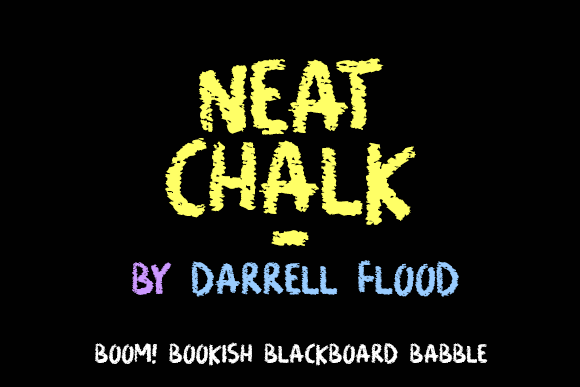
Neat Chalk Font
About the Neat Chalk Font
Meet Neat Chalk Font, a stunning font that brings a touch of elegance and professionalism to any design. A loose, textured, hand-drawn font, in a “chalk on blackboard” style. Use for a wide range of projects, and instantly add an academic or child-like appeal to your designs.
Font created by Darrell Flood.
Neat Chalk’s playful, slightly imperfect texture makes it ideal for headlines, short text blocks on posters, or children’s book titles. Its hand-drawn charm works well in branding for educational materials, artisanal food products, or craft businesses. However, avoid using it for body text or UI elements; its low readability hinders extended use.
For a balanced pairing, consider a clean sans-serif like Open Sans for body copy, complementing Neat Chalk’s informality with a professional touch. Alternatively, a classic serif like Garamond offers a sophisticated contrast, enhancing Neat Chalk’s whimsical quality. Avoid pairing it with other highly decorative fonts.
The font projects a friendly, approachable personality, ideal for conveying warmth and creativity.
Neat Chalk Font Usage Examples
Neat Chalk Font Example